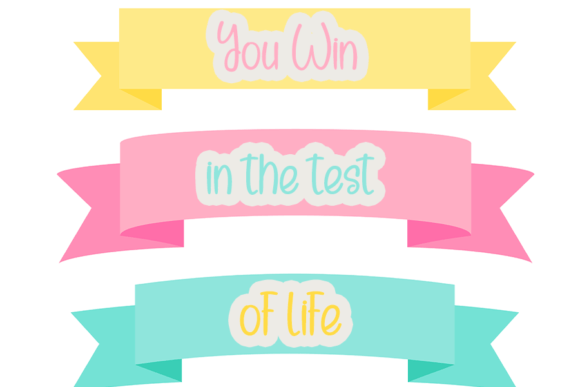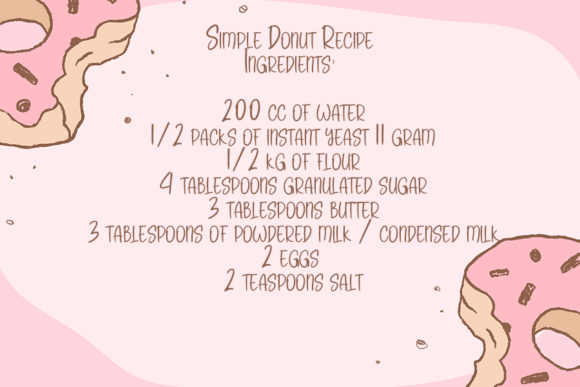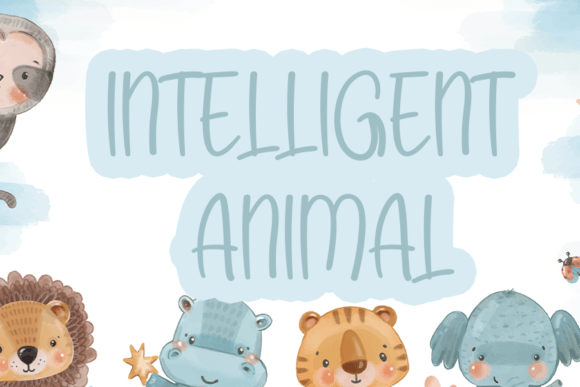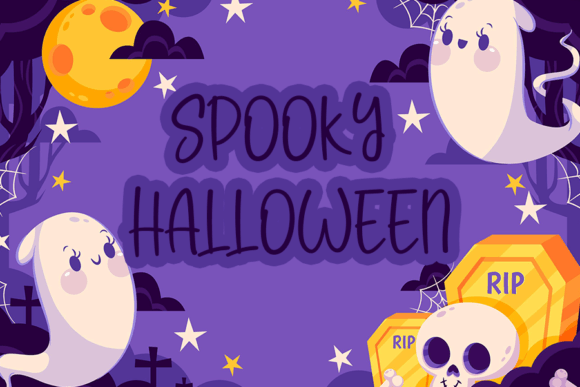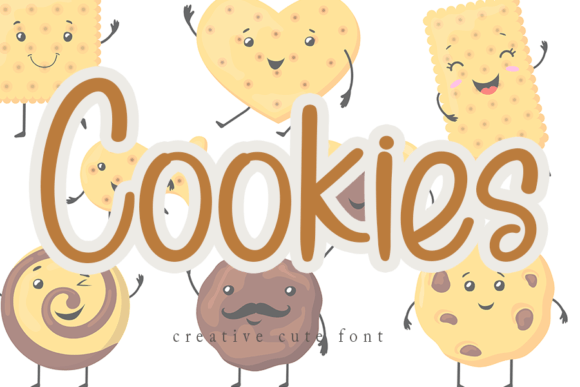
Cookies Font: The Sweetest Addition to Your Design Collection
Are you on the hunt for a font that adds a touch of elegance and whimsy to your designs? Look no further than Cookies Font, a stunning handwritten font that’s sure to capture your heart. With its unique blend of sophistication and playfulness, Cookies Font is the perfect choice for designers and crafters looking to create spectacular designs that stand out from the crowd.
The Charm of Cookies Font
Cookies Font is a beautifully crafted handwritten font that’s been described as neat, beautiful, and elegant. Its incredibly distinct and timeless style makes it an excellent addition to any design project, from branding and packaging to invitations and digital media. Whether you’re a professional designer or a DIY crafter, Cookies Font is sure to inspire your creativity and help you bring your ideas to life.
What Makes Cookies Font So Special?
So, what sets Cookies Font apart from other fonts out there? Here are just a few reasons why designers and crafters are falling in love with this gorgeous font:
- Elegant and Refined: Cookies Font boasts an elegant and refined aesthetic that’s perfect for designs that require a touch of sophistication.
- Unique and Distinctive: With its incredibly distinct style, Cookies Font is sure to make your designs stand out from the crowd.
- Timeless Appeal: Unlike trendy fonts that quickly go out of style, Cookies Font has a timeless appeal that’s sure to remain relevant for years to come.
- Versatile: Whether you’re designing a logo, creating a social media graphic, or crafting a beautiful invitation, Cookies Font is versatile enough to work in a variety of design contexts.
How to Use Cookies Font in Your Designs
Now that you’re eager to get your hands on Cookies Font, let’s talk about how to use it in your designs. Here are a few ideas to get you started:
- Branding and Packaging: Use Cookies Font to create stunning brand identities, including logos, business cards, and product packaging.
- Digital Media: Add a touch of elegance to your social media graphics, blog posts, and email newsletters with Cookies Font.
- Invitations and Stationery: Create beautiful invitations, greeting cards, and stationery with Cookies Font.
- Crafting and Scrapbooking: Use Cookies Font to add a personal touch to your scrapbooking and crafting projects.
Tips for Getting the Most Out of Cookies Font
To help you get the most out of Cookies Font, here are a few tips and tricks:
- Experiment with Colors: Play around with different colors and textures to add depth and interest to your designs.
- Mix and Match: Combine Cookies Font with other fonts to create unique and eye-catching typography.
- Pay Attention to Spacing: Make sure to adjust the spacing between letters and words to create a clean and visually appealing design.
In conclusion, Cookies Font is a must-have addition to any design collection. With its elegant and refined aesthetic, unique and distinctive style, and timeless appeal, it’s the perfect choice for designers and crafters looking to create spectacular designs. Whether you’re a seasoned pro or just starting out, Cookies Font is sure to inspire your creativity and help you bring your ideas to life.